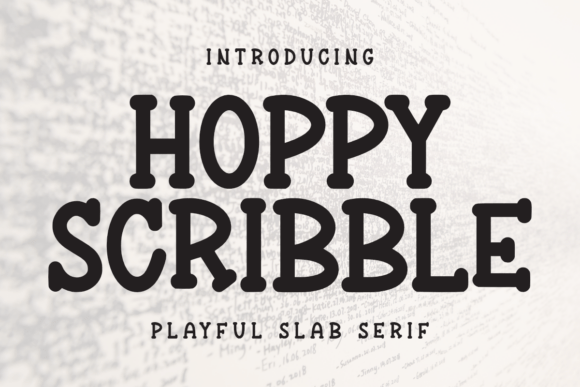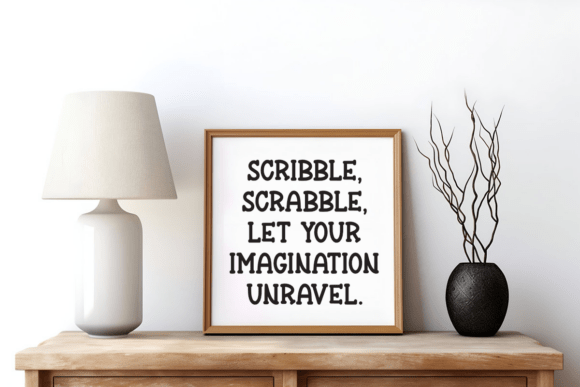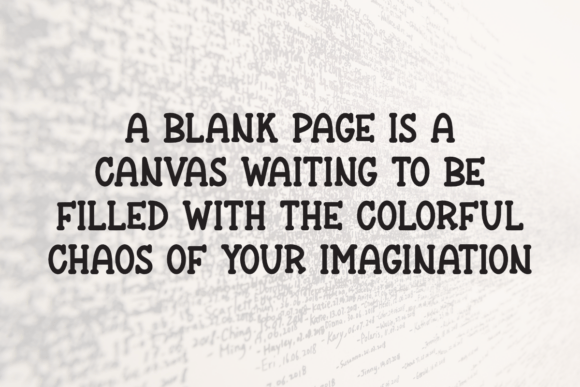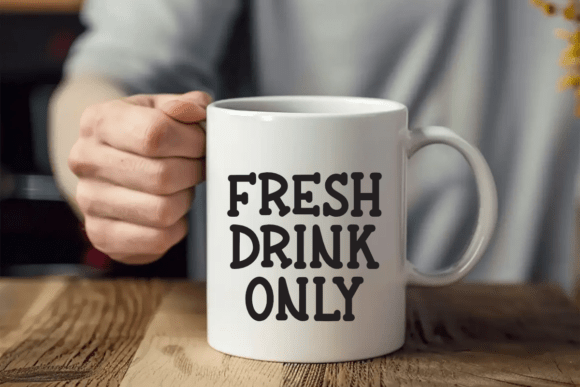
Hoppy Scribble Font: Cute Slab Serif for Playful DIY & Cricut Projects
About the Hoppy Scribble Font
Let us introduce you to Hoppy Scribble Font, where timeless design meets modern craftsmanship. Hoppy Scribble is a playful slab serif font that brings a burst of charm and sweetness to your designs. With its rounded terminals and candy-inspired character, it’s perfect for children’s projects, snack packaging, logos, and any layout that craves a fun, bouncy look.
Hoppy Scribble’s playful energy makes it ideal for headlines, short text blocks, and branding elements where a youthful, approachable feel is desired. It excels in applications like logos for children’s products, packaging for sweets or toys, and posters for family-friendly events. However, its highly decorative nature makes it unsuitable for body text or UI elements requiring high legibility. Extended use could quickly become visually overwhelming.
Pairing Hoppy Scribble with a clean sans-serif like Open Sans for body text creates a strong visual contrast and maintains readability. For a more sophisticated pairing, consider a classic serif such as Garamond, which will temper the font’s playful energy while enhancing its charm. Avoid pairing it with other highly decorative or script fonts, as this will result in visual clutter.
The font’s overall personality is best described as cheerful and friendly, with a touch of whimsy. It is not appropriate for projects requiring sophistication or seriousness. Consider it best used for projects targeting younger audiences or those needing a playful, memorable branding element.
Hoppy Scribble Font Usage Examples
Hoppy Scribble Font Example